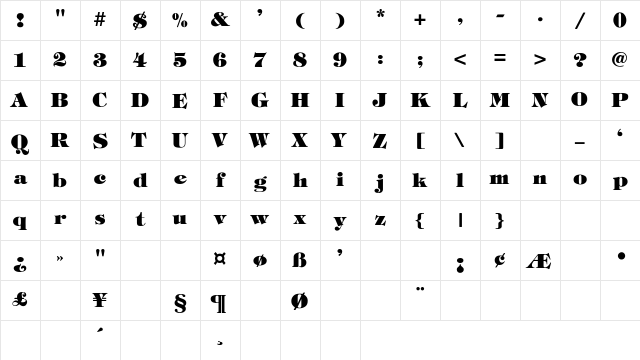
Dormeua-Heavy-Bold Regular Free Font
Dormeua-Heavy-Bold Regular
Design Context for Dormeua-Heavy-Bold
Dormeua-Heavy-Bold is a composed and adaptable typeface that performs quietly and consistently across a wide range of design contexts. Its bold stroke weight gives it real presence on the page.
Pro Tip: Use Dormeua-Heavy-Bold in both headline and body roles to test its range before committing to a single application.